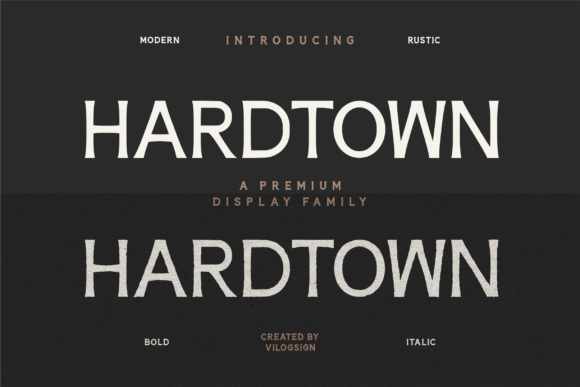
Do you ever find yourself stuck in a design rut, struggling to find the perfect font to bring your vision to life? It’s a feeling we’ve all been there, staring at a blank canvas, wondering what’s missing. For designers, a great font can be the difference between a mediocre project and a masterpiece. That’s why we’re excited to introduce you to the Hardtown Font, a versatile sans serif font family that’s about to become your new go-to.
With its robust features, including multilingual support and a range of variations (Rustic, Normal, Bold, and Italic), the Hardtown Font is the perfect tool for any designer looking to elevate their work. Whether you’re creating branding, logos, posters, or packaging, this font is sure to deliver the impact you need. And with its clean, modern design, it’s the perfect addition to any project.
Hardtown Font Key Features
- Font Family: Hardtown Font is a sans-serif typeface designed for urban and modern environments.
- Size: Hardtown Font comes in 7 weights (Thin, Light, Regular, Medium, Bold, Heavy, Black) to cater to diverse design needs.
- Unique Characteristics: The font features geometric shapes, clean lines, and an industrial feel, making it ideal for modern and edgy designs.
- Language Support: Supports a wide range of languages, including Latin, Cyrillic, and Greek scripts, ensuring its versatility in global designs.
Designer Review: Hardtown Font
Overall, I think the Hardtown Font has some great qualities that make it a solid choice for certain design projects. ✨
- It’s great for headings and titles, with a bold and eye-catching look that grabs attention.
- The font’s rough, distressed texture adds a unique touch to designs and helps them stand out.
- The font is highly customizable, making it easy to adjust to fit different design needs.
However, there are a few limitations that prevent me from giving it a perfect score. ⚠️
- The font can be a bit difficult to read in smaller sizes, which may limit its use in body text.
- The distressed texture can also make the font feel cluttered or overwhelming in certain contexts.
- The font’s bold, attention-grabbing look may not be suitable for designs that require a more subtle or understated approach.
Overall, I think the Hardtown Font is a great choice for designs that require a bold, eye-catching look. It’s perfect for headings, titles, and other elements where you want to grab the user’s attention. However, it may not be the best choice for designs that require a more subtle or readable approach.
Practical Application Guide for Hardtown Font
For best results, use Hardtown Font in bold or italic styles to add emphasis to your text.
Common use cases for Hardtown Font include:
- Graphic design and branding
- Typography-based artwork
- Print materials such as business cards and brochures
Alternatives to “Hardtown Font” for Designers
Bebas Neue is a sans-serif font that is perfect for creating bold and modern designs. It is ideal for use in titles, headings, and other areas where a strong visual impact is desired. Bebas Neue is a great alternative to Hardtown Font as it has a similar bold and edgy feel, but with a more refined and elegant appearance.
Montserrat is a geometric sans-serif font that is designed for use in digital media. It is a great choice for designers who want to create clean and modern designs with a strong focus on typography. Montserrat is similar to Hardtown Font in its bold and geometric feel, but it is more versatile and can be used in a wide range of design applications.
Rockwell is a slab serif font that is known for its bold and sturdy appearance. It is a great choice for designers who want to create designs that are strong and authoritative. Rockwell is a good alternative to Hardtown Font as it has a similar bold and rugged feel, but with a more classic and timeless appearance.
Playfair Display is an elegant and luxurious serif font that is perfect for creating high-end designs. It is ideal for use in titles, headings, and other areas where a sophisticated and refined appearance is desired. Playfair Display is a great alternative to Hardtown Font as it has a similar luxurious and elegant feel, but with a more sophisticated and refined appearance.